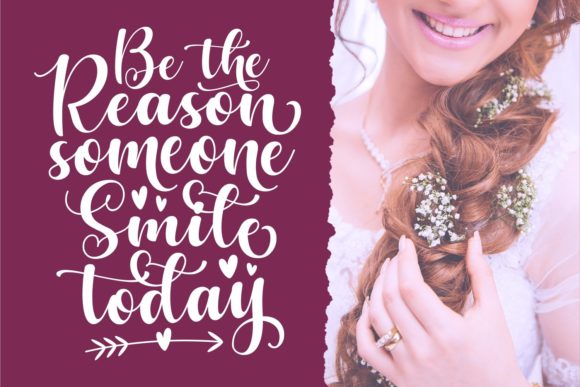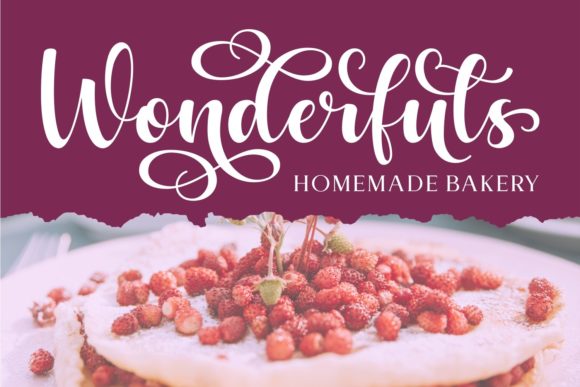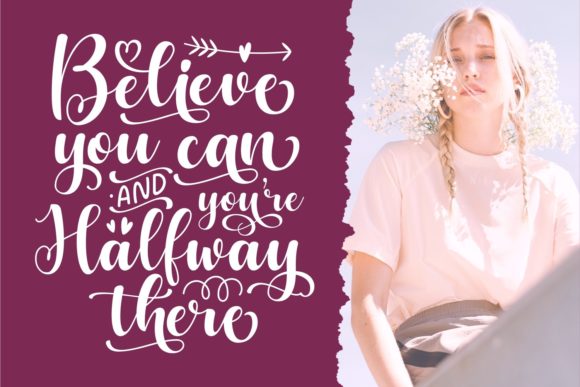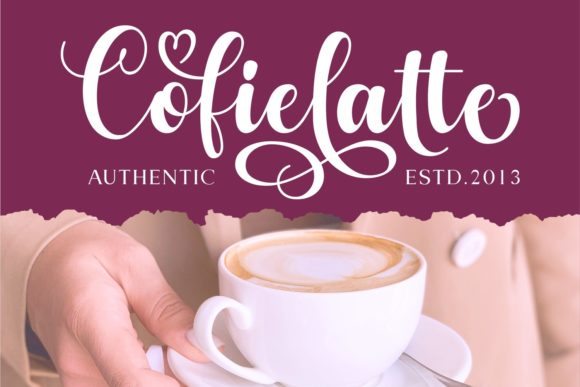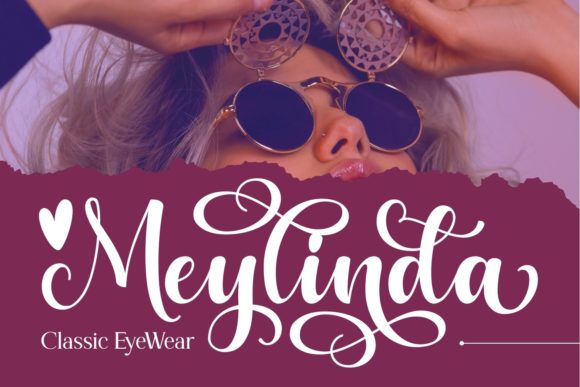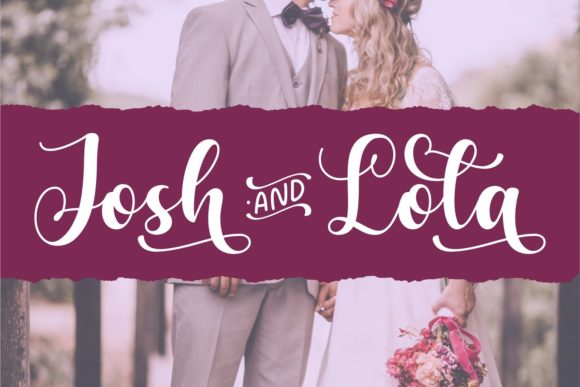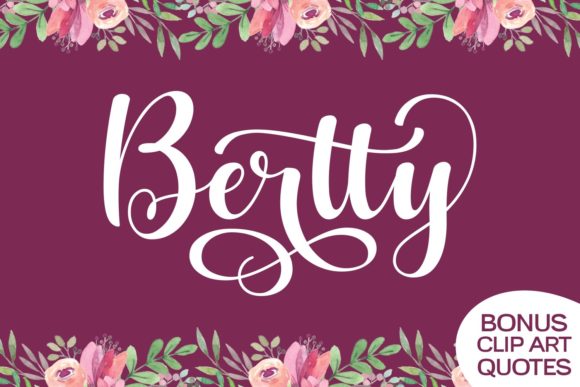
Introducing Bertty Font: Elevate Your Designs with Elegance and Sophistication
In the world of typography, a font can make all the difference in the aesthetic and appeal of a design project. For designers, crafters, and creative enthusiasts, finding the perfect font that combines elegance, sophistication, and versatility is a constant quest. This is where Bertty Font comes into play, a dazzling script font that is about to revolutionize the way you approach your design projects.
What Makes Bertty Font Stand Out?
Bertty Font is not just another script font; it’s a meticulously crafted typeface that exudes luxury and refinement. Its neat and highly detailed design makes it perfect for a wide range of applications, from branding and advertising to packaging and digital media. Whether you’re working on a high-end fashion brand, a gourmet food product, or a sophisticated digital platform, Bertty Font is sure to elevate your design to new heights.
One of the standout features of Bertty Font is its PUA (Private Use Area) encoding. This means that accessing all the glyphs and swashes is incredibly straightforward. PUA encoding allows designers to easily access and use the extended character set, including alternates, ligatures, and swashes, without the need for complicated software or technical expertise. This feature makes Bertty Font not only beautiful but also highly practical and user-friendly.
Bertty Font offers a wealth of design possibilities, thanks to its comprehensive set of glyphs and swashes. With this font, you can create stunning headings, elegant body text, and eye-catching titles that are sure to capture the attention of your audience. The font’s versatility extends to various design projects, including:
- Branding and Logos: Create memorable and impactful brand identities with Bertty Font’s elegant and sophisticated lettering.
- Digital Media: Enhance your website, social media graphics, and digital ads with a touch of luxury and refinement.
- Print Materials: Elevate your business cards, brochures, posters, and packaging designs with a font that exudes professionalism and style.
- Crafting and DIY Projects: Add a personal touch to your handmade products, such as wedding invitations, stationery, and fabric designs.
Why Choose Bertty Font?
In a sea of fonts, Bertty stands out for several reasons:
- Unique and Distinctive: Bertty Font offers a unique and distinctive look that sets it apart from more common typefaces.
- Highly Legible: Despite its elegant and cursive nature, Bertty Font remains highly legible, making it suitable for both headings and body text.
- Time-Saving: With its PUA encoding and extensive character set, Bertty Font saves you time and effort in your design process.
- Support for Multiple Languages: Bertty Font supports multiple languages, making it a great choice for global brands and multilingual projects.
Bertty Font is more than just a typeface; it’s a design solution that can elevate your projects with its elegance, sophistication, and versatility. Whether you’re a professional designer, a small business owner, or a crafting enthusiast, Bertty Font offers a world of creative possibilities at your fingertips. With its dazzling script, detailed craftsmanship, and PUA encoding for easy access, Bertty Font is poised to become your go-to choice for all your design needs. Discover the difference Bertty Font can make in your designs today.